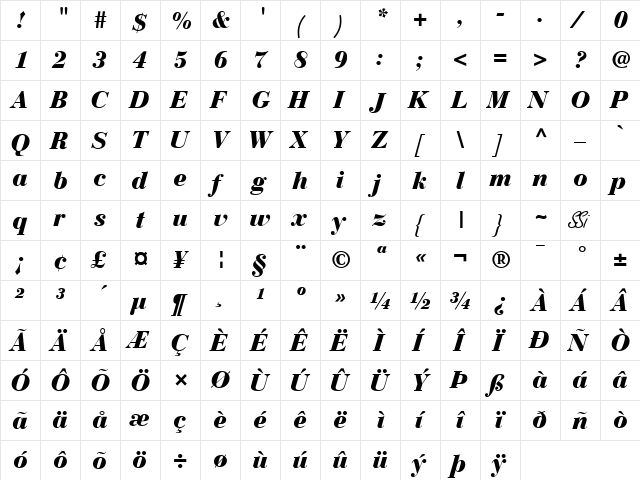
Bodoni Recut Black SSi Black Italic
Design Context for Bodoni Recut Black SSi Typeface
Bodoni Recut Black SSi is a composed and adaptable typeface that performs quietly and consistently across a wide range of design contexts. Its italic angle brings a sense of urgency and motion to the letterforms.
Pro Tip: Try Bodoni Recut Black SSi for annotation and caption copy alongside an upright companion — the contrast in angle creates a dynamic but ordered typographic system.